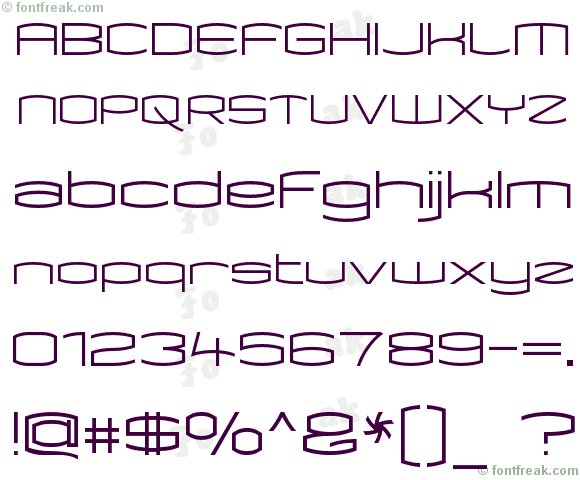
Kameleon
Kameleon, designed by Apostrophic Labs in 2002, is a captivating display font that exudes a unique personality. This freeware typeface is characterized by its playful and whimsical design, making it a standout choice for various creative projects. The font features a moderate stroke weight with an intriguing mix of rounded and angular shapes, creating a sense of dynamism and movement. The spacious letterforms contribute to its legibility, while the subtle decorative elements add a layer of charm that enhances its visual appeal.
Ideal for a wide range of applications, Kameleon shines in contexts that call for creativity and flair. It is particularly well-suited for wedding invitations, where its unique character can evoke a sense of joy and celebration. The font also works beautifully in movie posters, where its distinctive style can capture attention and convey the theme of the film. Additionally, Kameleon is a fantastic choice for restaurant menus, providing an inviting aesthetic that can entice diners. Small business owners looking to create memorable branding will find Kameleon to be an excellent asset for logos and promotional materials, allowing them to stand out in a competitive market.
The target audience for this font includes graphic designers, content creators, and small business owners who are looking to infuse their projects with a touch of creativity. Kameleon font free download offers an accessible way for these professionals to enhance their designs without compromising on quality. What truly sets Kameleon apart is its ability to balance playfulness with sophistication, making it a versatile font that can adapt to various themes while still making a bold statement. Whether you're designing for print or digital media, Kameleon is sure to leave a lasting impression.